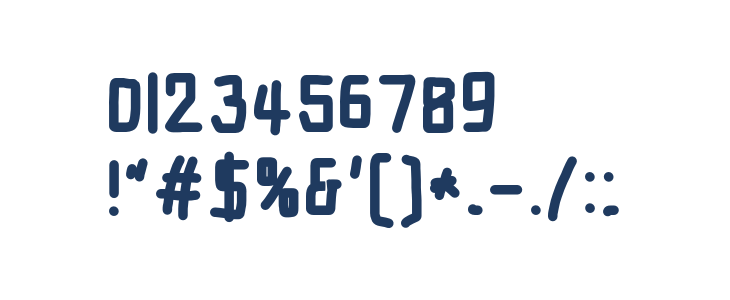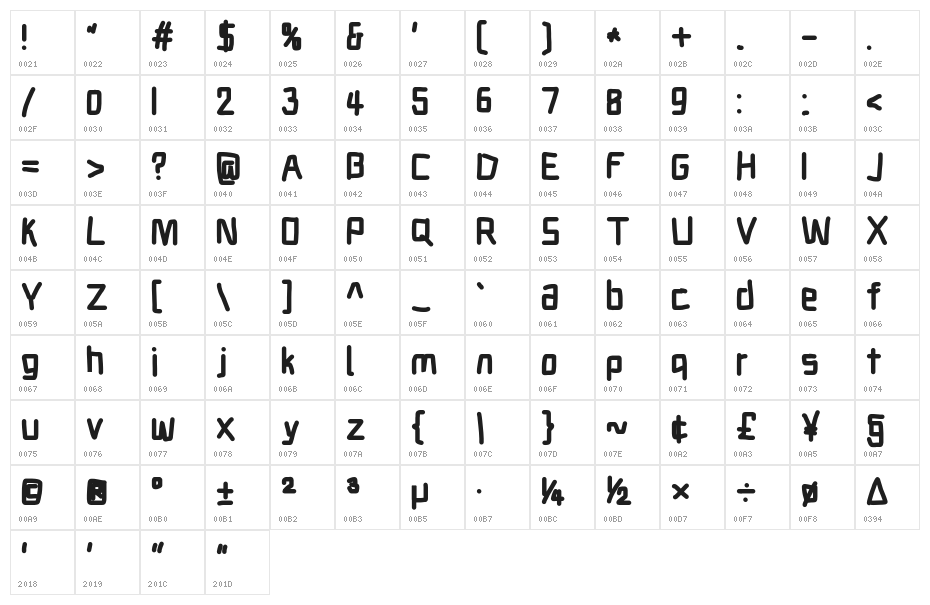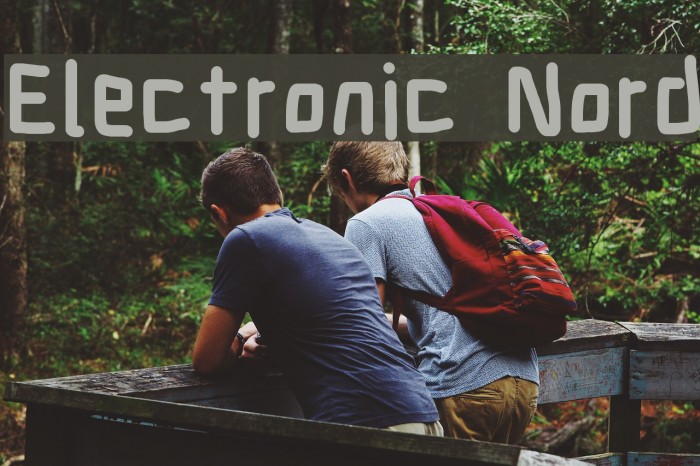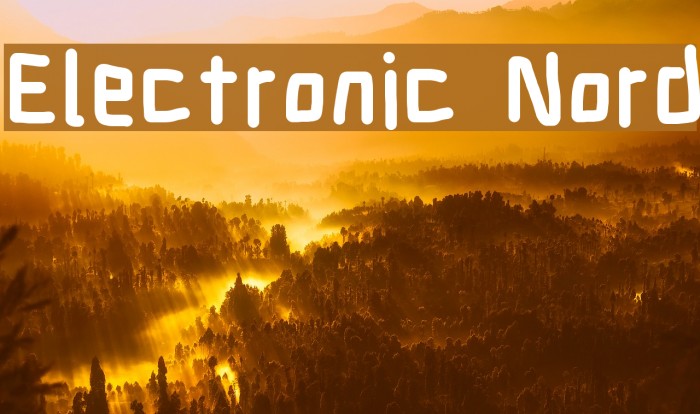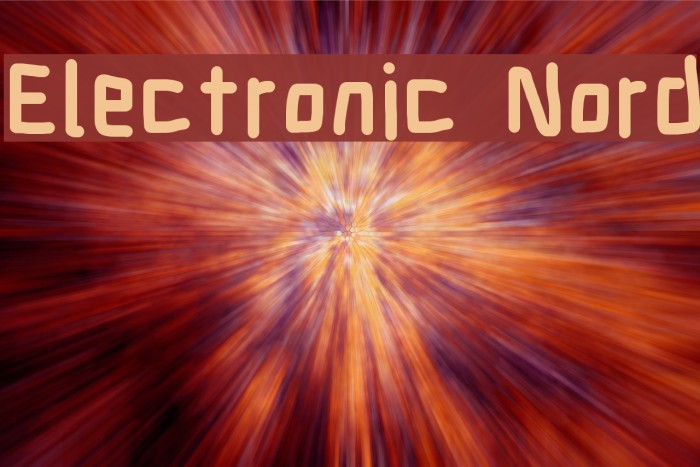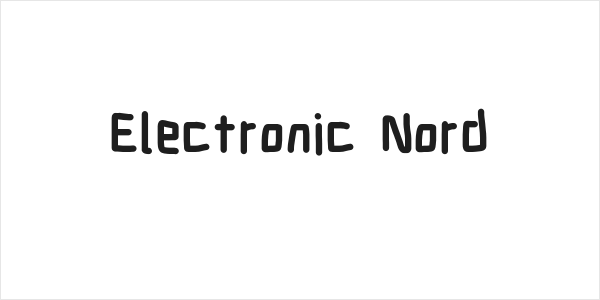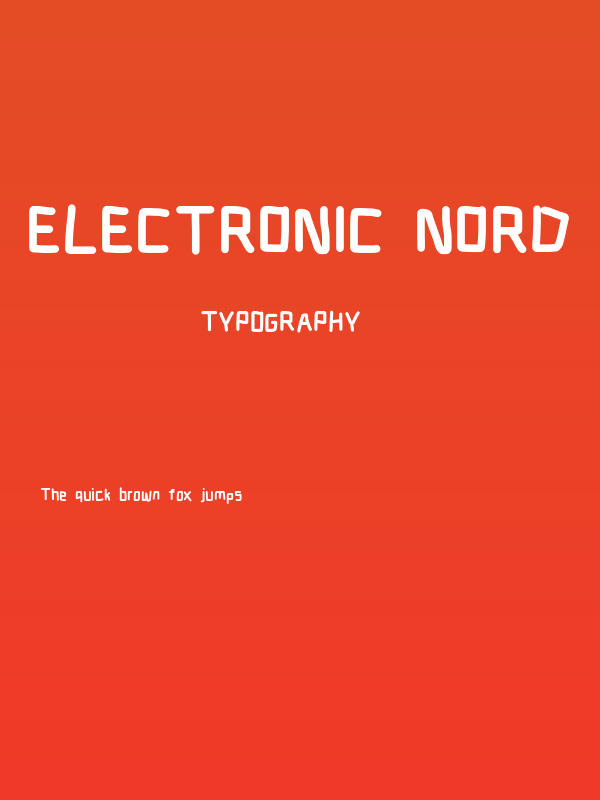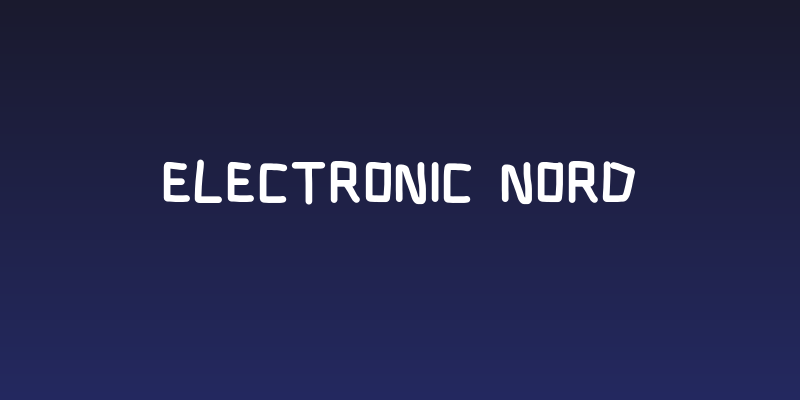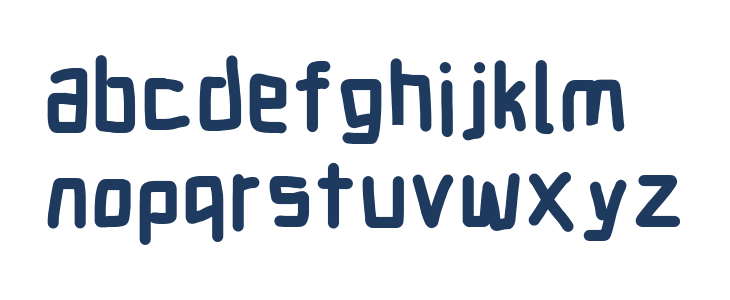
Electronic Nord Font
Electronic Nord Description
This font features a bold and playful design with rounded edges and a slightly irregular form, giving it a hand-drawn appearance. The uppercase and lowercase letters maintain a consistent style, with a uniform stroke width that adds to its boldness. The numerals and special characters follow the same design principles, ensuring a cohesive look across all glyphs. The font's unique character is emphasized by its slightly condensed width and tight character spacing, making it suitable for eye-catching designs. Its modern yet informal style is ideal for projects that require a touch of creativity and approachability.
| Overall Style | Modern, Playful |
| Proposed Projects | Ideal for children's books, playful branding, casual invitations, and creative posters. |